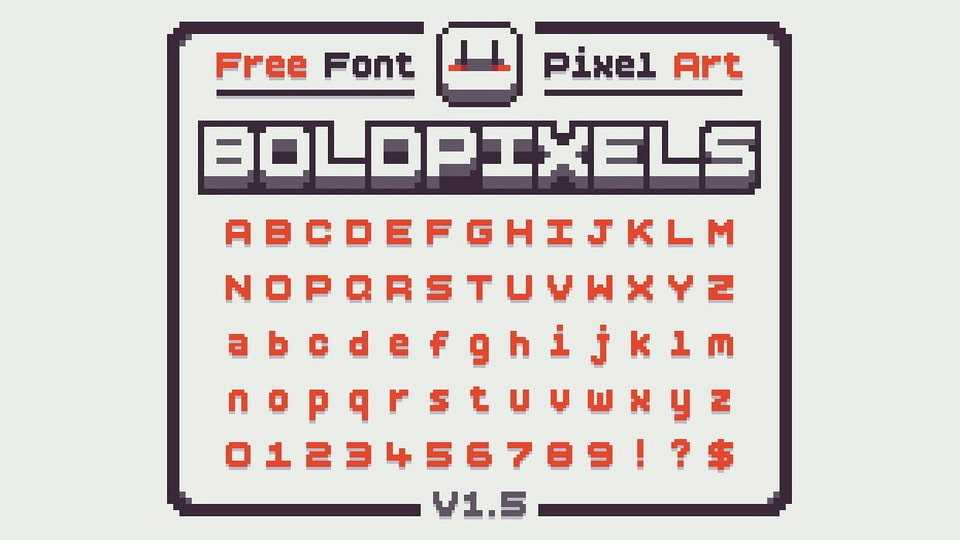
Download BoldPixels font, a handcrafted 16 pixels typeface designed to add a retro touch to your projects. Its clear design makes it perfect for game developers, designers, and creators looking for a unique pixel perfect font.
Designer: YukiPixels